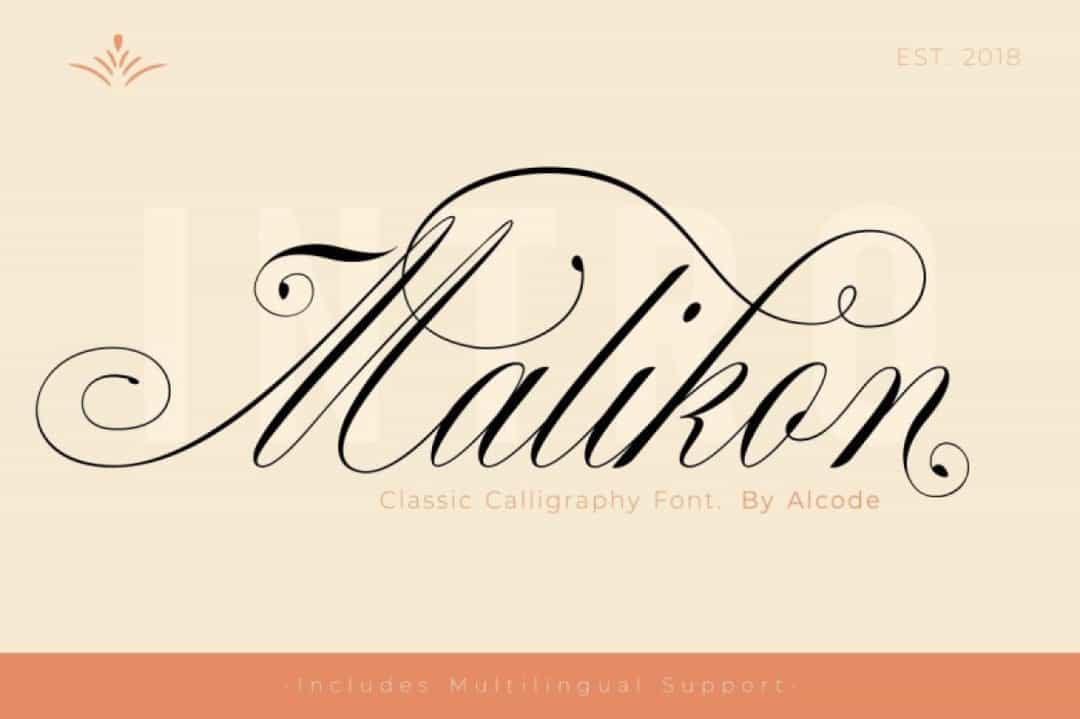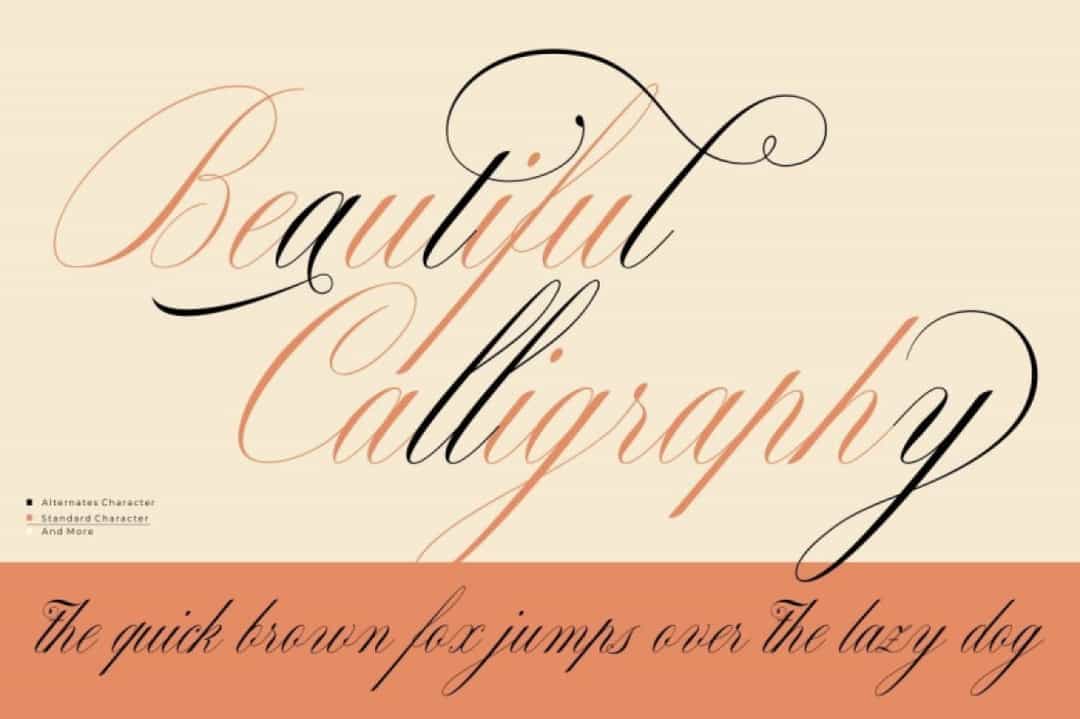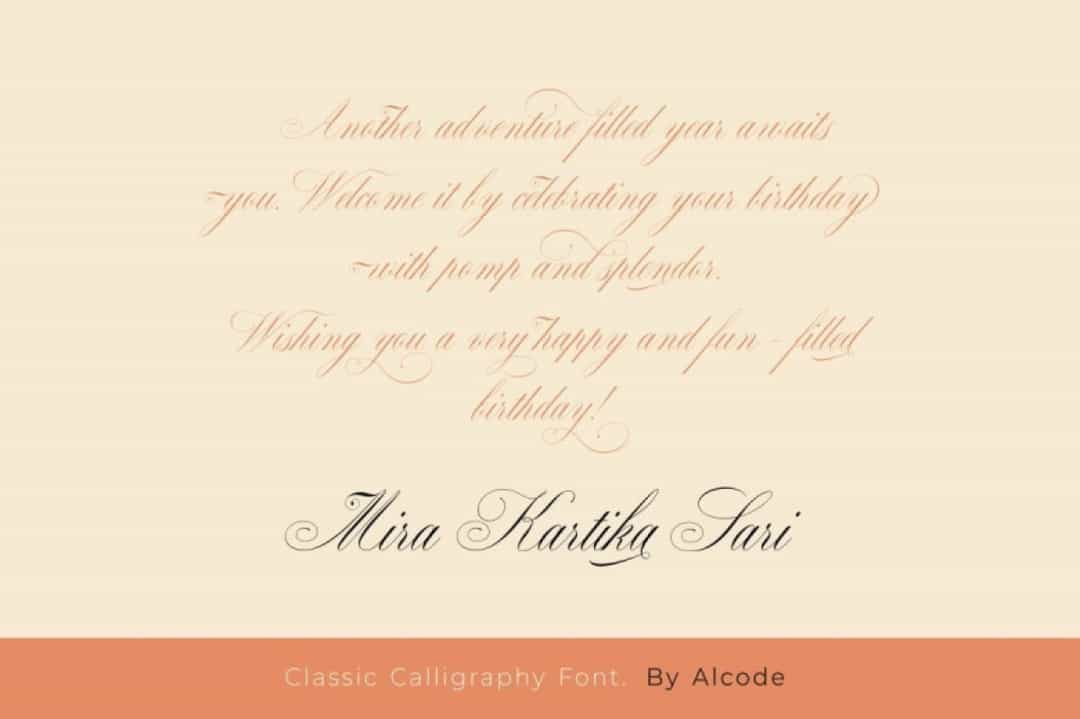
Malikon font can be described as an elegant letter; each letter is carefully designed to make your message seem stunning. Malikon font works great for badges, logos, clothes, shirts, labels designs and much more!